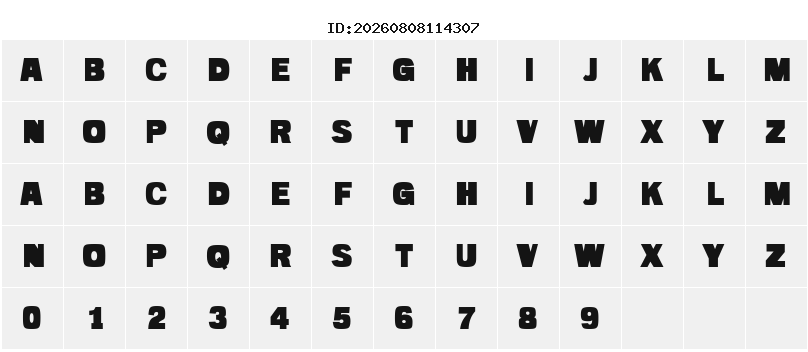
Populist Shout Preview
• Font Name: Populist Shout
About Populist Shout.ttf
Populist Shout.ttf is a modern, elegant sans-serif font designed for ultimate readability and visual harmony. Perfect for branding, headlines, web design, and print materials.